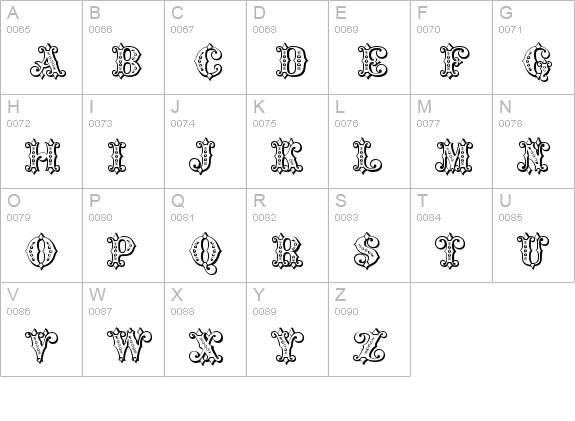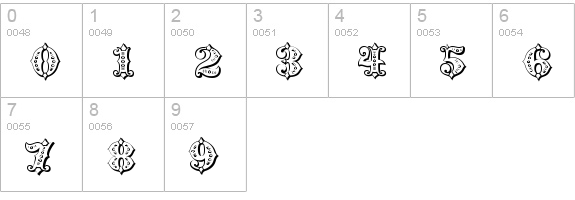
Maverick's Lucky Spades font is a dynamic and bold typeface that radiates a sense of adventure and individuality. With its sharp edges and unique design, this font is perfect for making a statement in your designs. Inspired by the daring spirit of the mavericks of old, Maverick's Lucky Spades font exudes a sense of confidence and charm. This versatile font can be used for a variety of projects, from branding to posters to social media graphics. Its eye-catching appearance is sure to capture the attention of your audience and leave a lasting impression. The best part? Maverick's Lucky Spades font is available for free download at FontsMarket.com. So go ahead and unleash your creativity with this one-of-a-kind typeface that will set your designs apart from the rest.